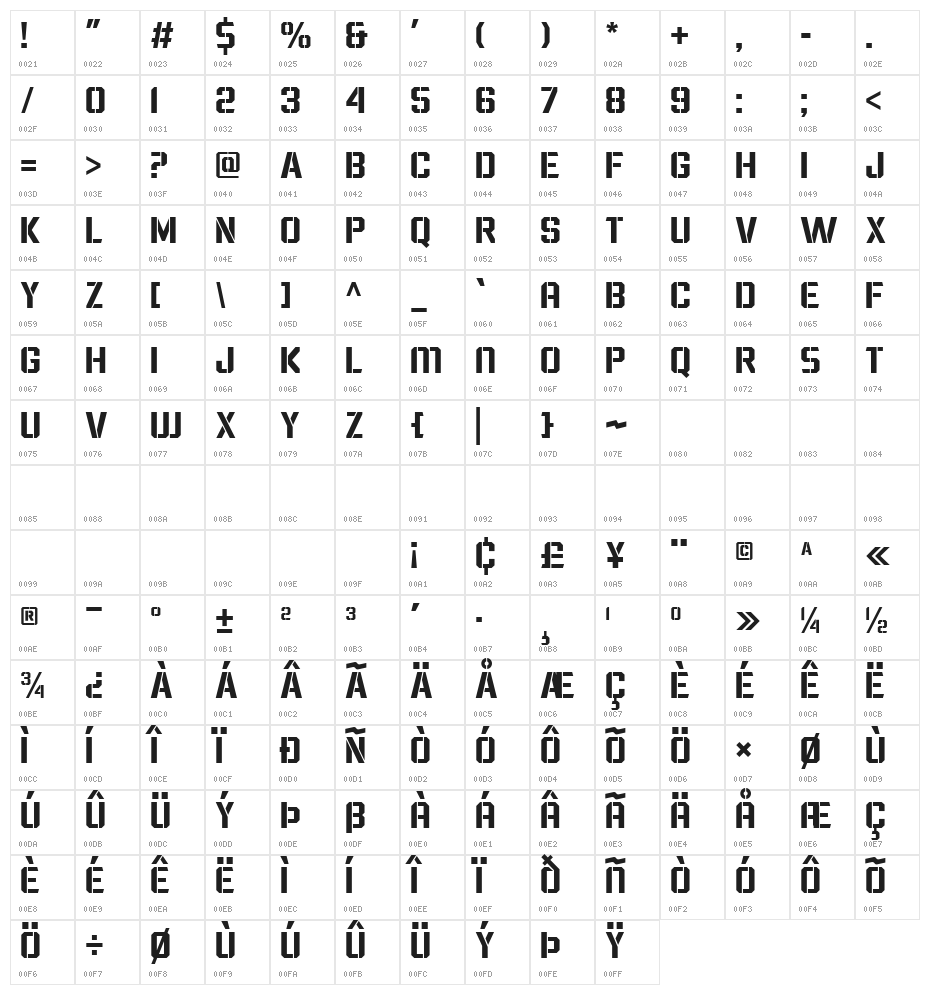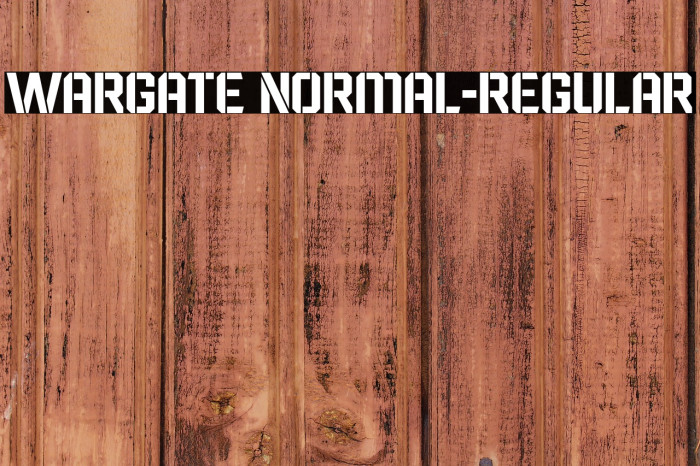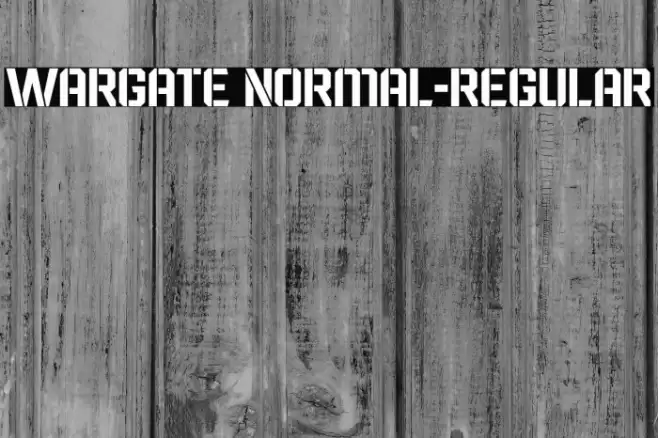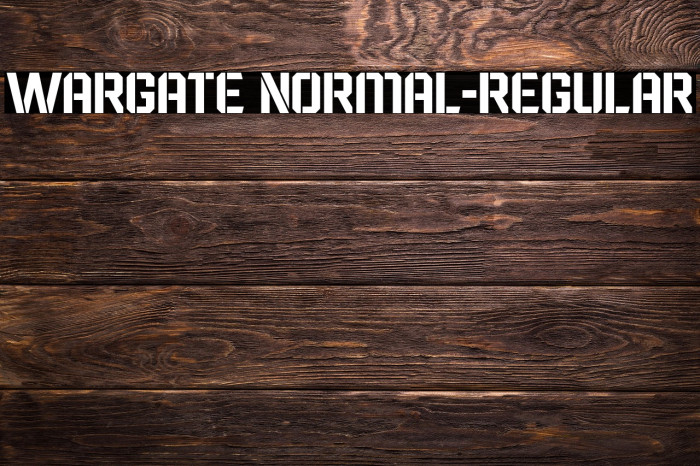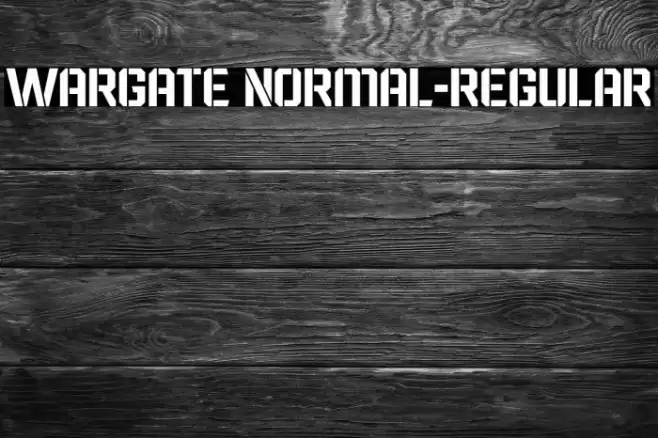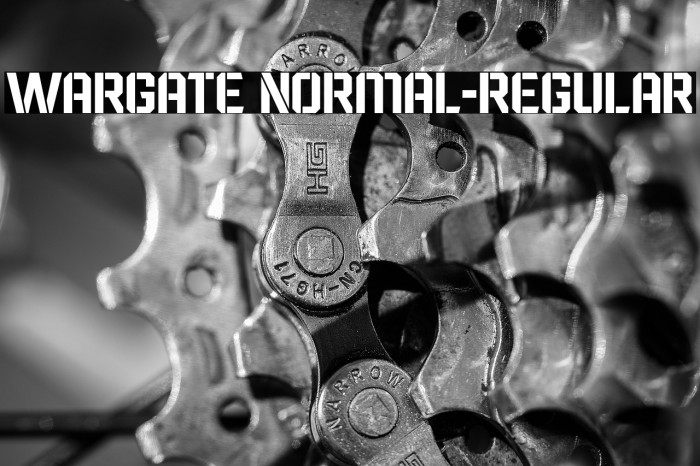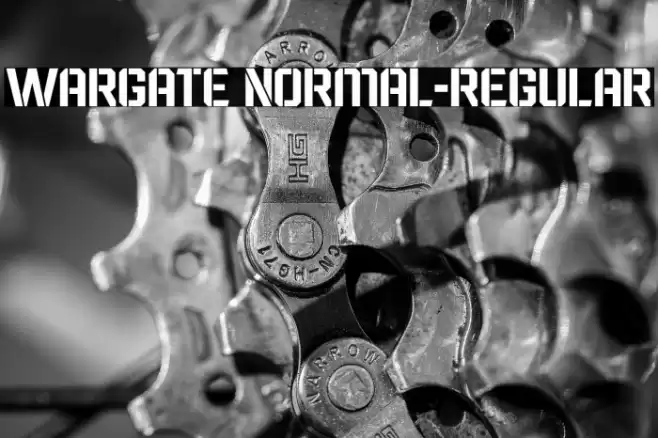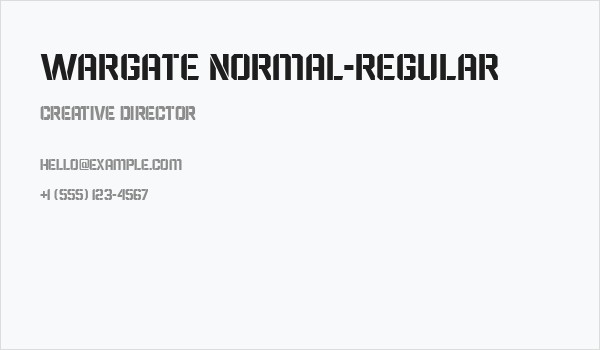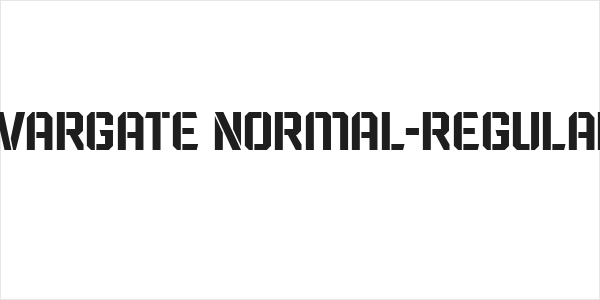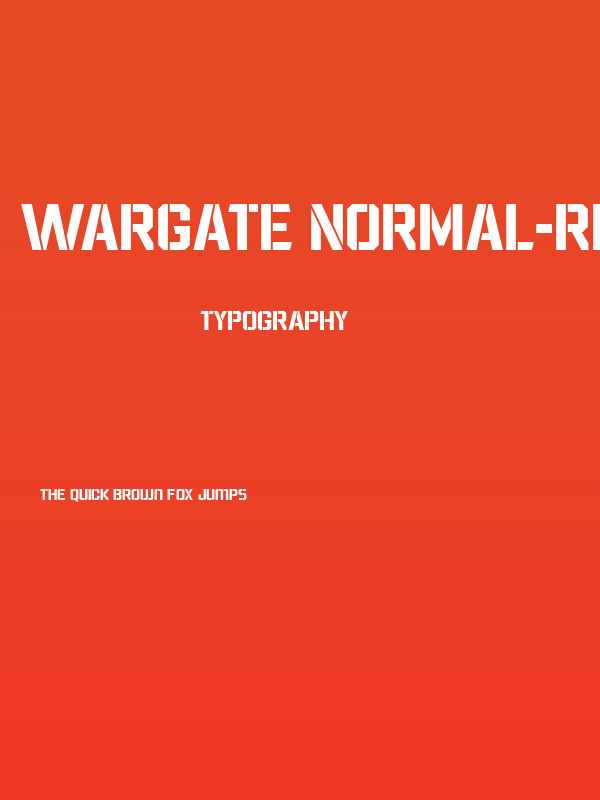
Wargate Normal-Regular Font
Wargate Normal-Regular Description
This font features a bold, geometric design with a futuristic and industrial feel. The characters are constructed with sharp angles and straight lines, giving them a strong and commanding presence. The uppercase and lowercase letters maintain a consistent style, emphasizing uniformity and precision. The numbers and special characters are equally robust, ensuring readability and impact. This font is ideal for projects that require a modern, edgy aesthetic, such as technology branding, video game titles, or sci-fi themed designs.
| Proposed Projects | Technology branding, video game titles, sci-fi themed designs, posters, and logos. |